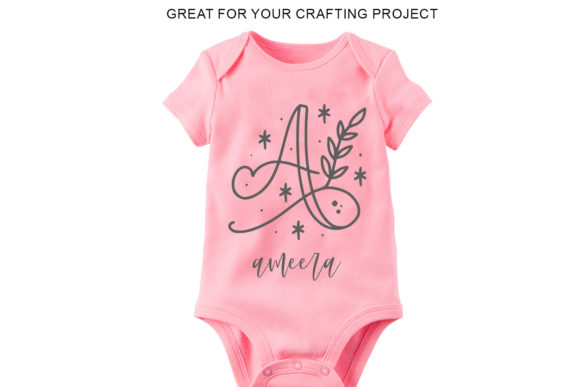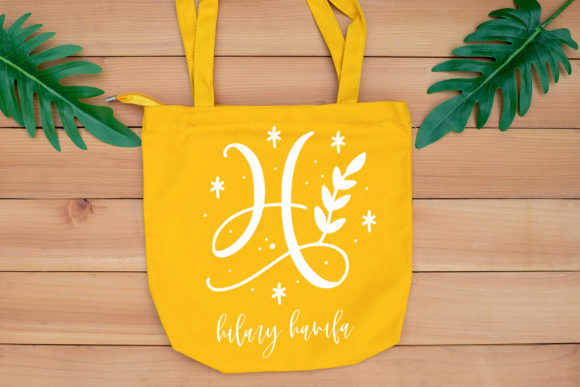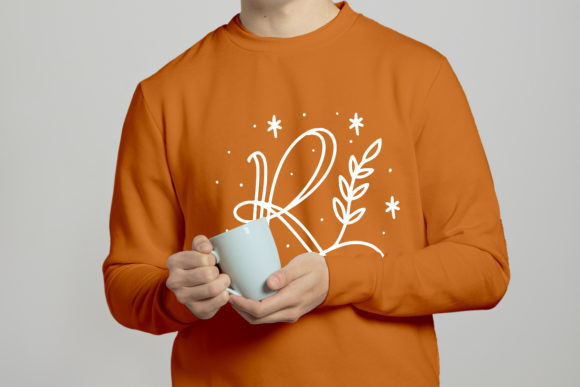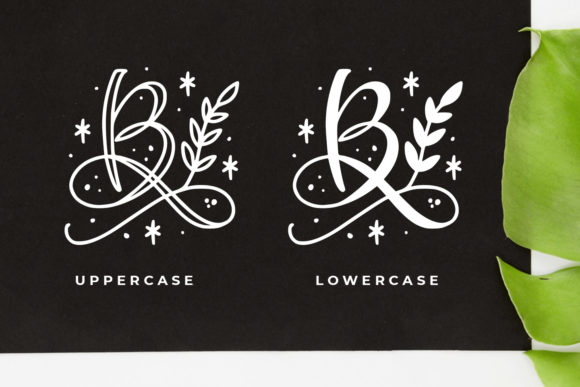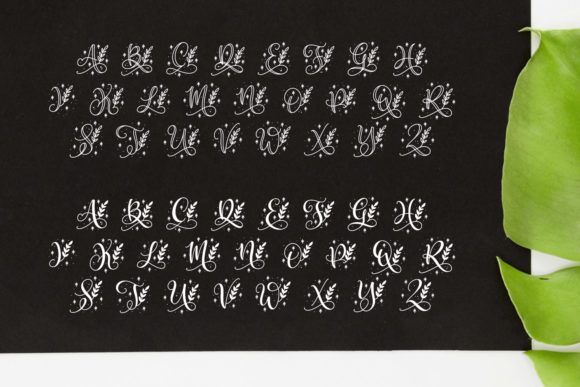
Introduction to Quinn Monogram Font
Do you remember that moment when you finally found the perfect font to bring your creative project to life? It’s like a match made in heaven – the words flow effortlessly, and your design takes on a whole new level of magic. For many designers, that moment is what makes all the hard work worth it.
Today, we’re excited to introduce you to the Quinn Monogram Font, a unique and festive decorative font that’s sure to elevate your designs to the next level. Whether you’re working on a wedding invitation, a birthday party design, or a holiday card, this font is the perfect addition to your design resource toolkit.
Key Features of Quinn Monogram Font
- High-quality design resource ideal for creative projects, offering a unique and elegant aesthetic.
- Includes a range of customizable monogram designs, making it a versatile design resource for various creative projects.
- Designed with high resolution, ensuring crisp and clear visuals even at larger sizes.
Honest Review: Quinn Monogram Font
I recently stumbled upon the Quinn Monogram Font while working on a creative project, and I’m excited to share my thoughts on this design resource.
The font is a great addition to any project that requires a touch of elegance and sophistication. I love how versatile it is – you can use it for weddings, baby showers, or even personal branding.
- ✨ The font is highly customizable, making it perfect for personalization.
- ✨ The font has a transparent background, which makes it easy to use on any design surface.
- ⚠️ The font might not be suitable for very small text sizes, as it can become difficult to read.
- ⚠️ The font family is relatively small, which might limit its use in certain design scenarios.
Tips and Best Practices
To get the most out of the Quinn Monogram Font, make sure to use it consistently throughout your design project. You can also experiment with different font sizes, styles, and colors to create unique and eye-catching designs. Additionally, consider using the font in conjunction with other design elements, such as graphics or images, to add visual interest and depth to your designs.
The Quinn Monogram Font is perfect for a variety of creative projects, including:
Business cards and letterheads
Social media graphics and profiles
Invitations and event graphics
Logos and branding materials
Document headers and titles
Yes, the Quinn Monogram Font comes with a transparent background, making it easy to layer over other design elements. This feature is particularly useful for designers who want to create a seamless and visually appealing design resource.